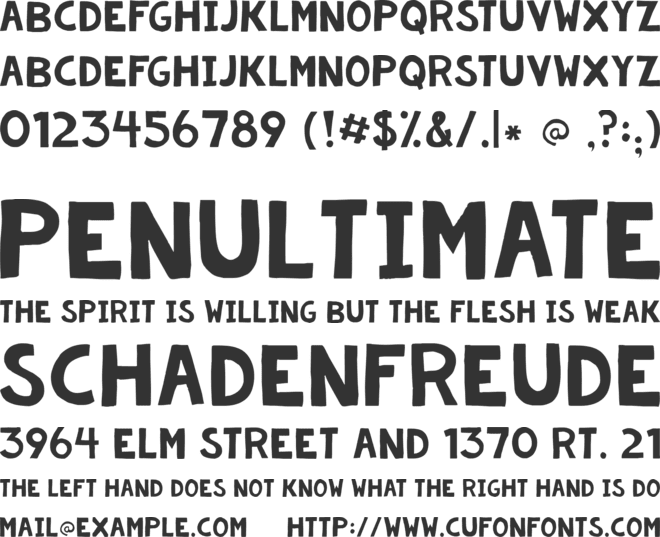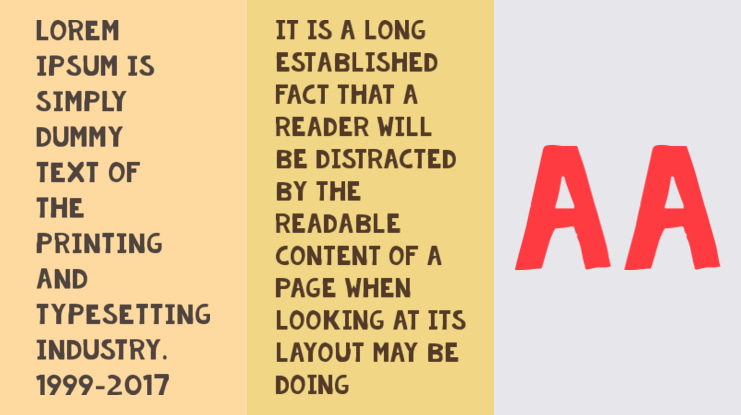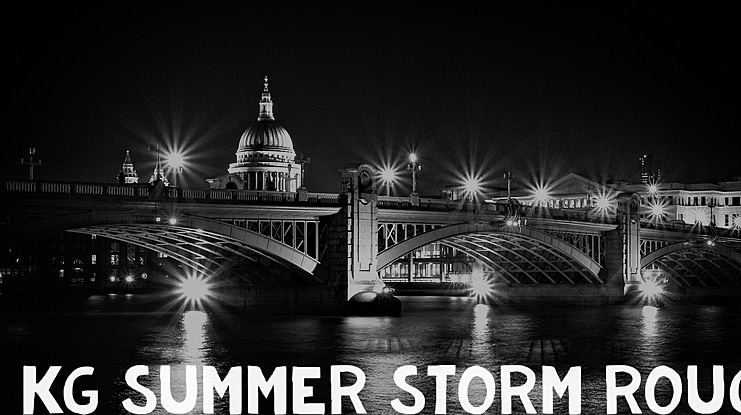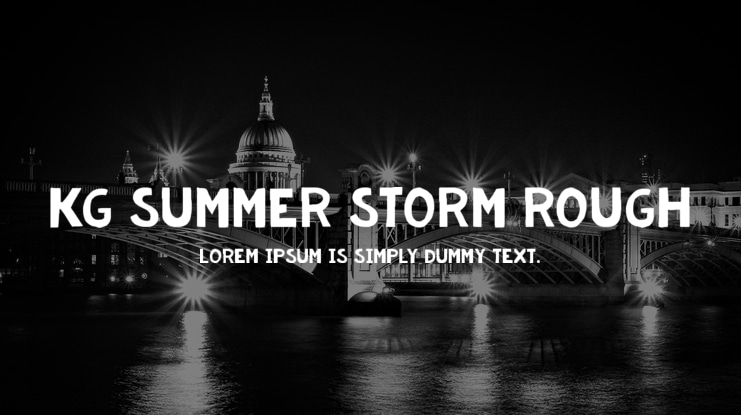
KG Summer Storm Rough Font Family
Kimberly Geswein
An all-caps title font in a whimsical style. This font comes in 2 styles- a rough edged marker version and a smooth-edged clean version.